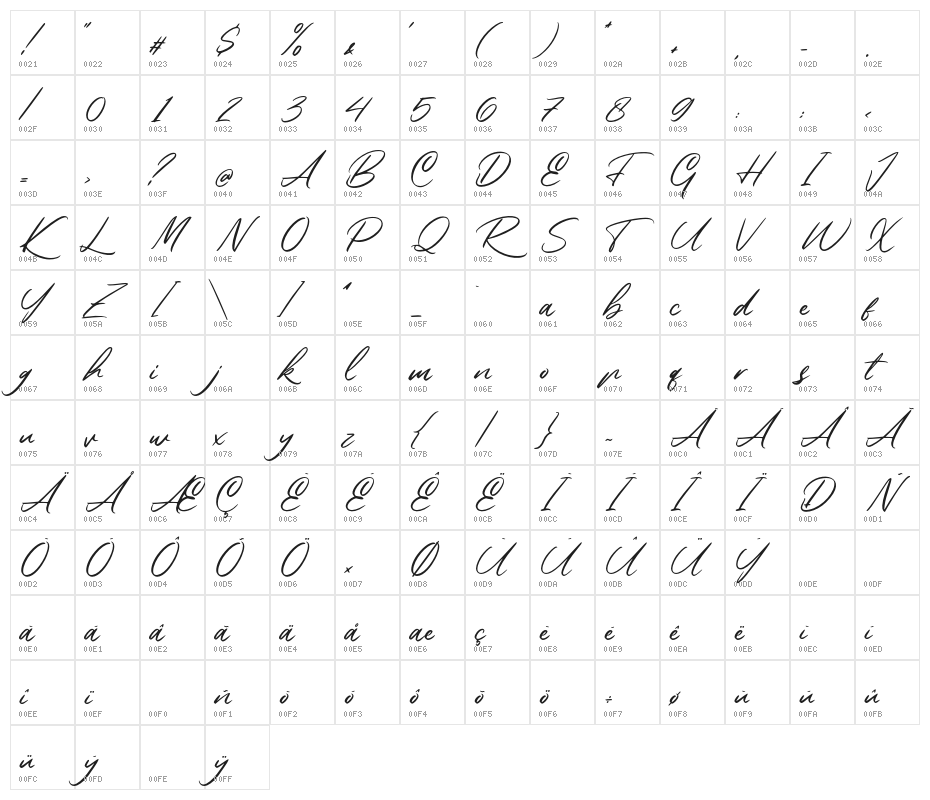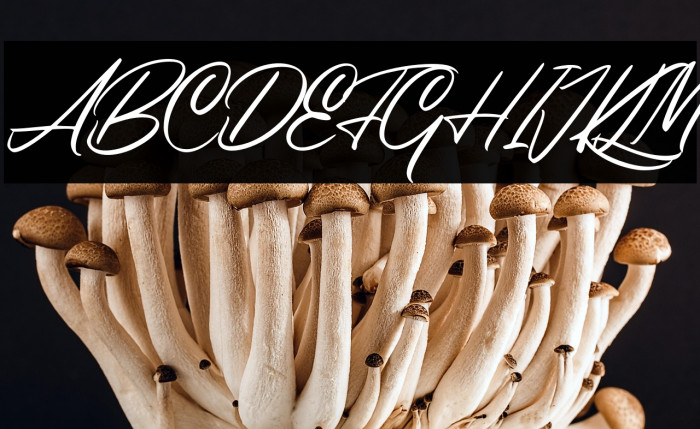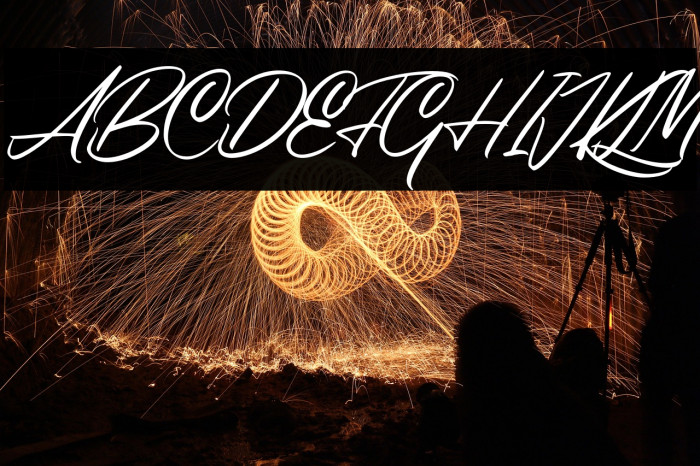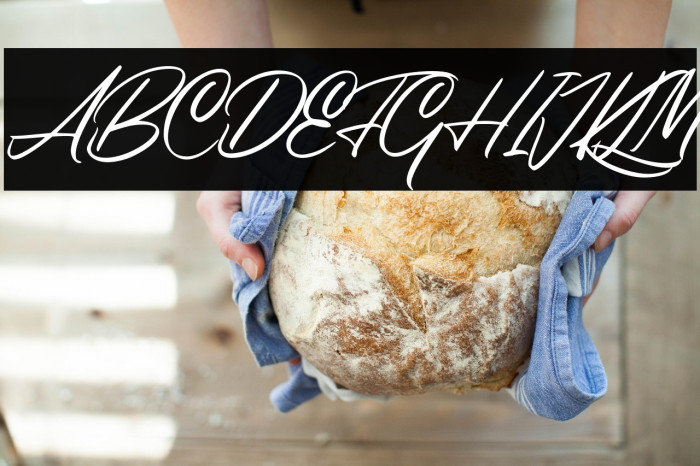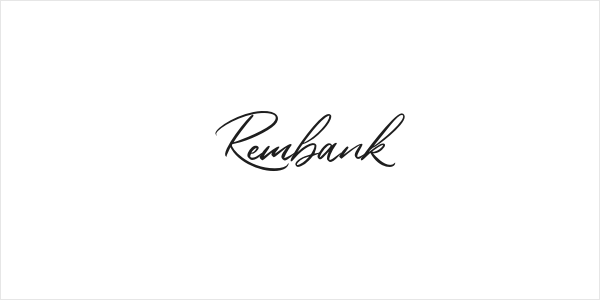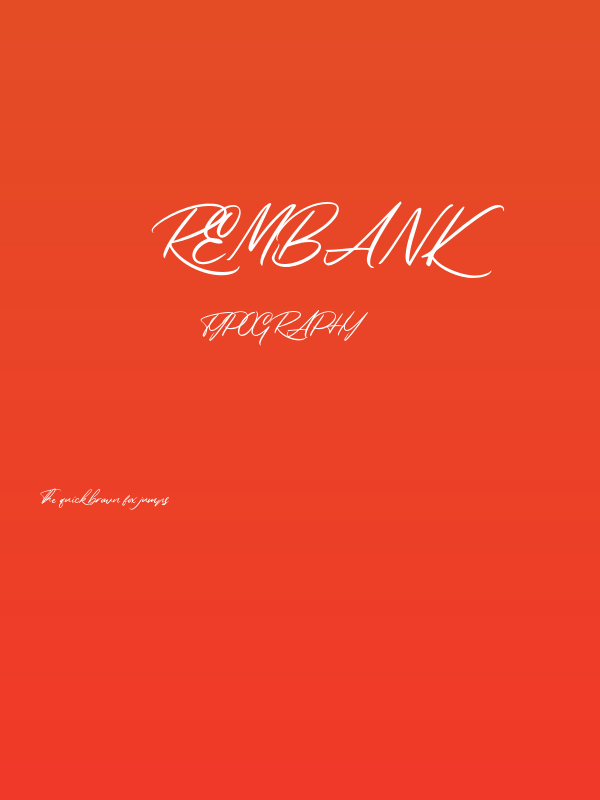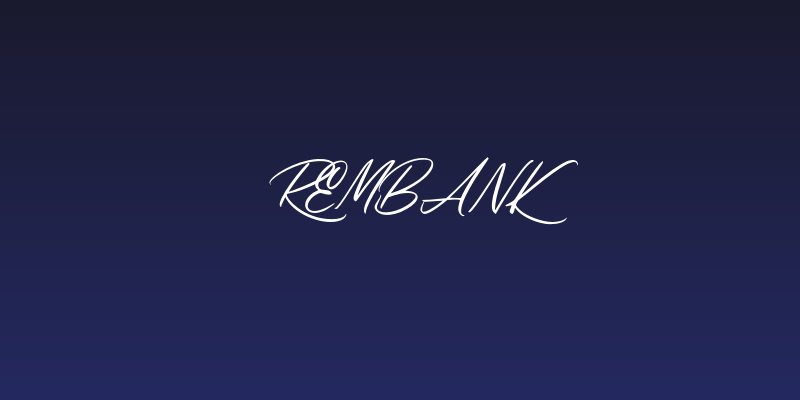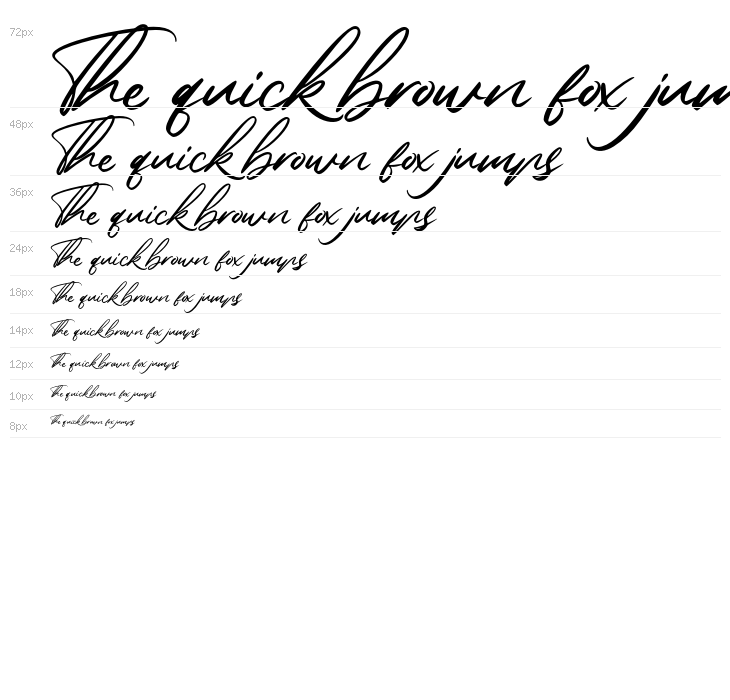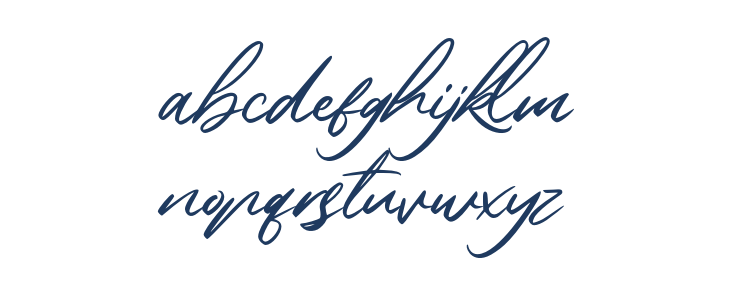
Rembank Font
Rembank Description
This font exhibits a dynamic and fluid script style, characterized by its elegant, flowing strokes and cursive nature. The uppercase letters are bold and sweeping, with a distinct slant that adds a sense of motion and grace. The lowercase letters maintain a consistent style, with smooth connections and rounded forms that enhance readability while preserving the artistic flair. The numerals and special characters are crafted with the same attention to detail, ensuring a cohesive appearance across all glyphs. This font's overall aesthetic is both sophisticated and approachable, making it suitable for a variety of design applications.
| Overall Style | Elegant, Decorative |
| Proposed Projects | Ideal for wedding invitations, greeting cards, branding projects, and elegant packaging designs. |